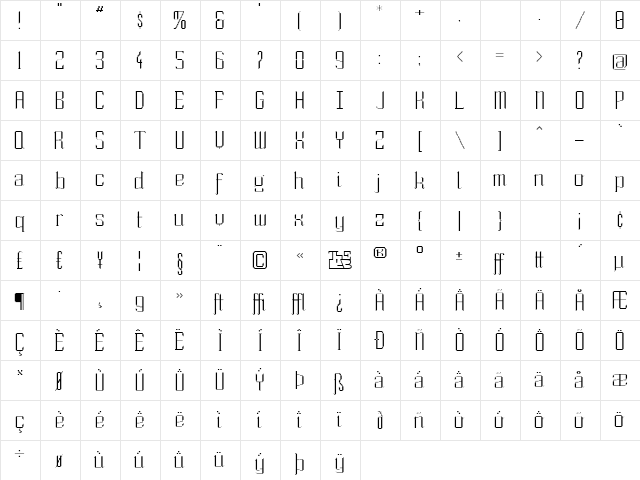
So Wide Fat and Thin Regular
Design Context for So Wide Fat and Thin Typeface
So Wide Fat and Thin is a composed and adaptable typeface that performs quietly and consistently across a wide range of design contexts. Its slender proportions lend an understated elegance to any composition.